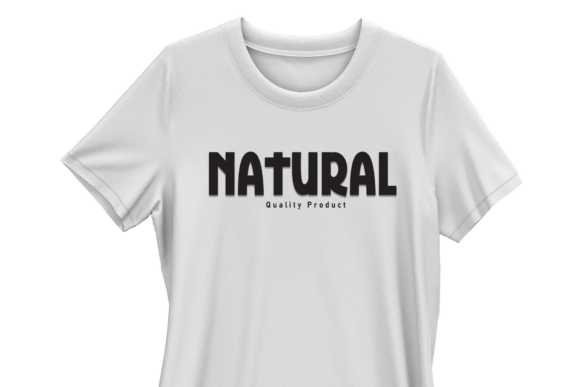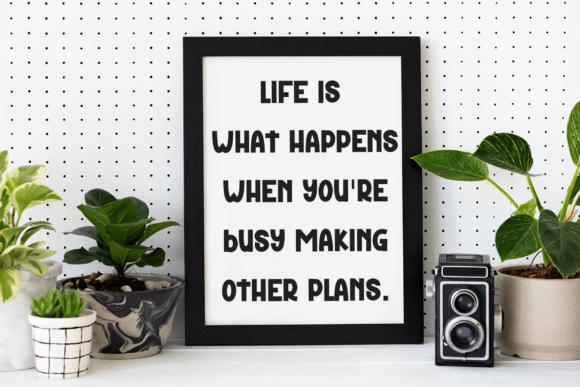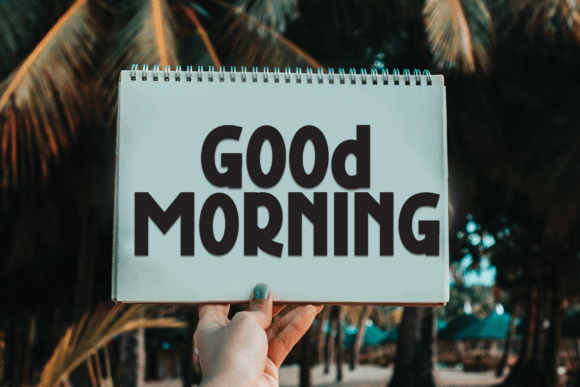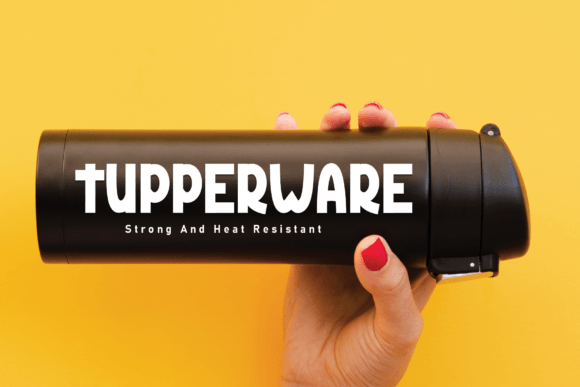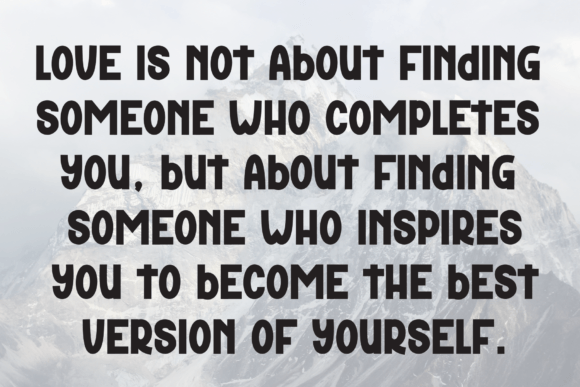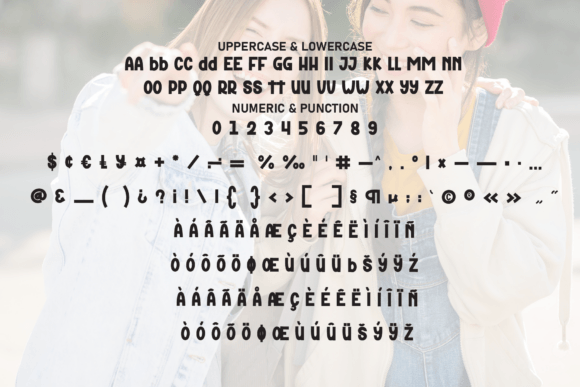
Introduction to Happy Bestie Font Font
Fonts play a crucial role in design, and the Happy Bestie Font font is a typeface that brings both character and versatility to any project. Whether you’re working on a branding project, a website, or a print design, the Happy Bestie Font font offers a unique style that can elevate your work.
Introducing a charmingly playful handwritten display font that radiates joy with every stroke – exuding a warmth that speaks directly to the heart.
This delightful gem is perfect for infusing an element of sweetness and fun into wedding invitations, cards or any design craving a touch of whimsy Its friendly, approachable character effortlessly brightens up any project, transforming your craft into an inviting and captivating creation.
Key Features of Happy Bestie Font Font
Why Choose Happy Bestie Font Font?
The Happy Bestie Font font is more than just a typeface – it’s a design tool that helps you communicate your message with style and clarity. Its unique character set and versatile design make it suitable for a wide range of applications, from elegant invitations to bold headlines.
With its carefully crafted letterforms and balanced proportions, the Happy Bestie Font font ensures readability and visual appeal across all mediums.
What makes Happy Bestie Font font special?
The Happy Bestie Font font stands out with its unique design, exceptional readability, and versatility across various design applications.